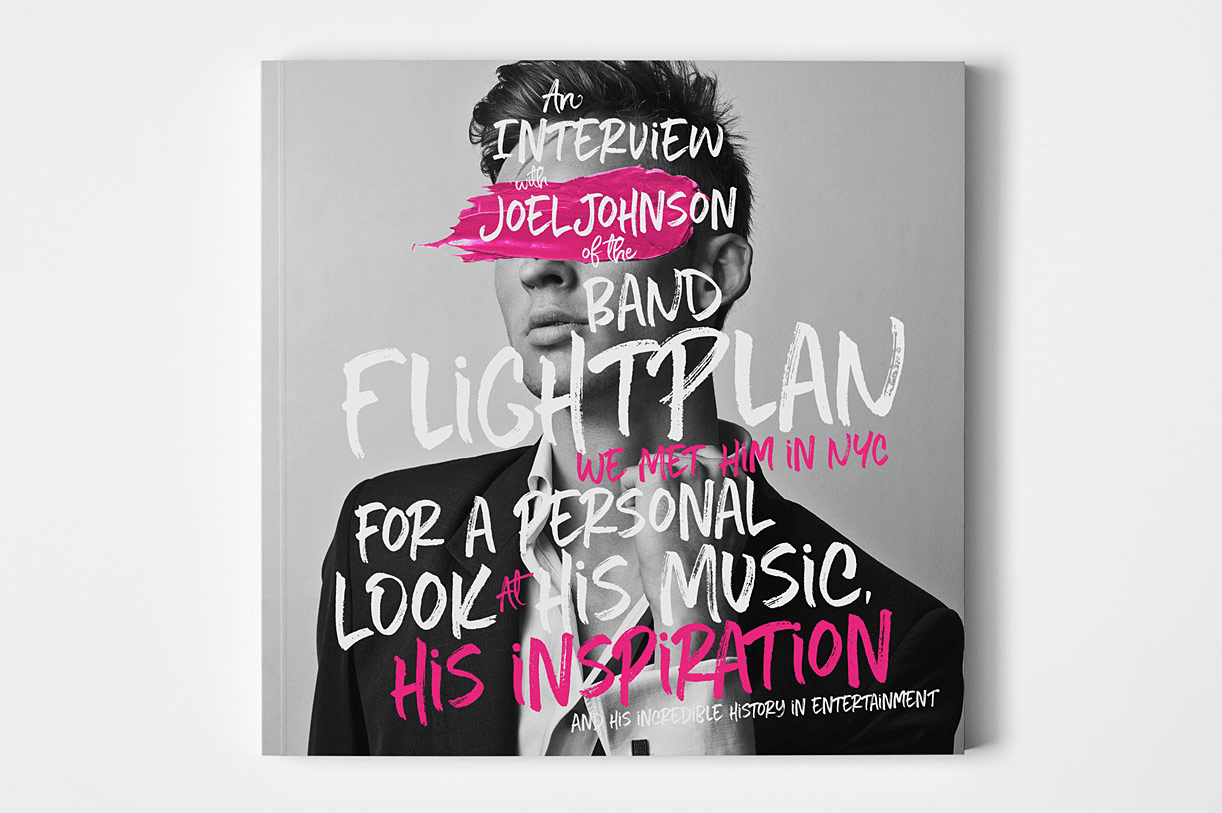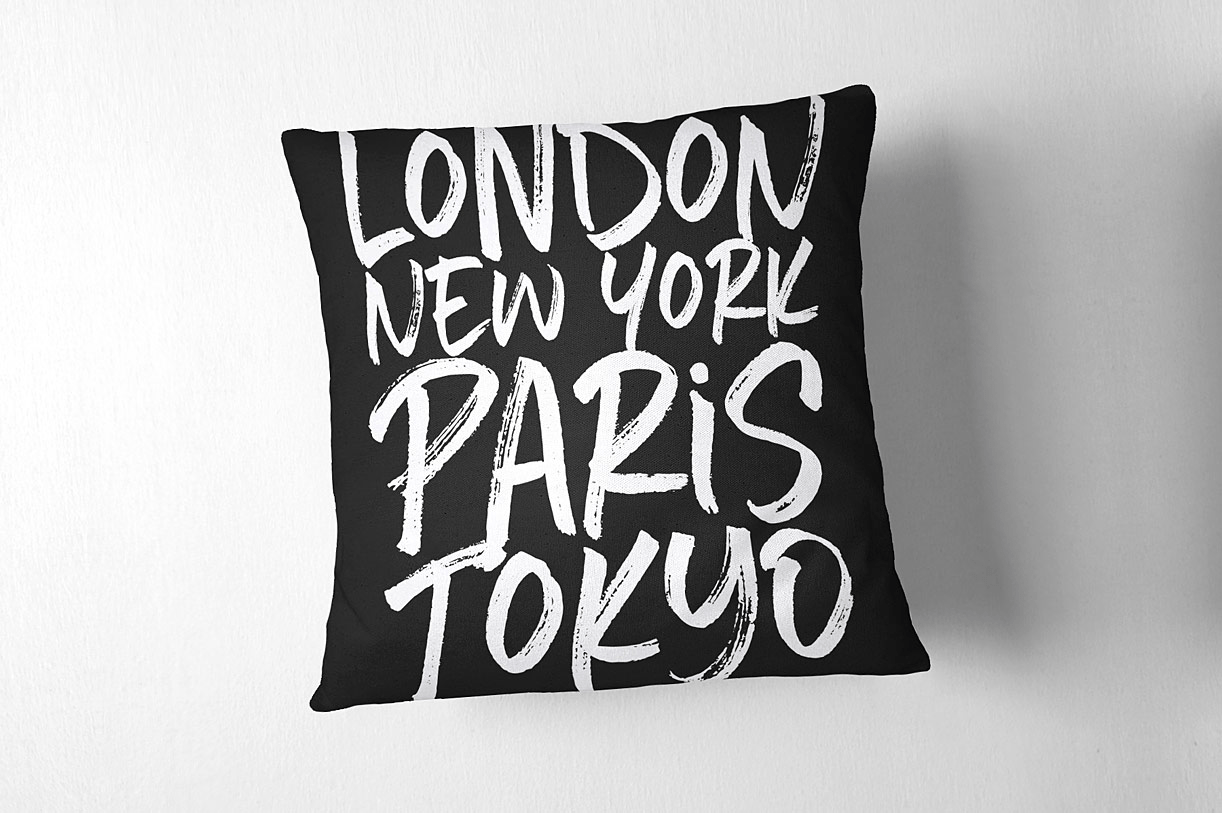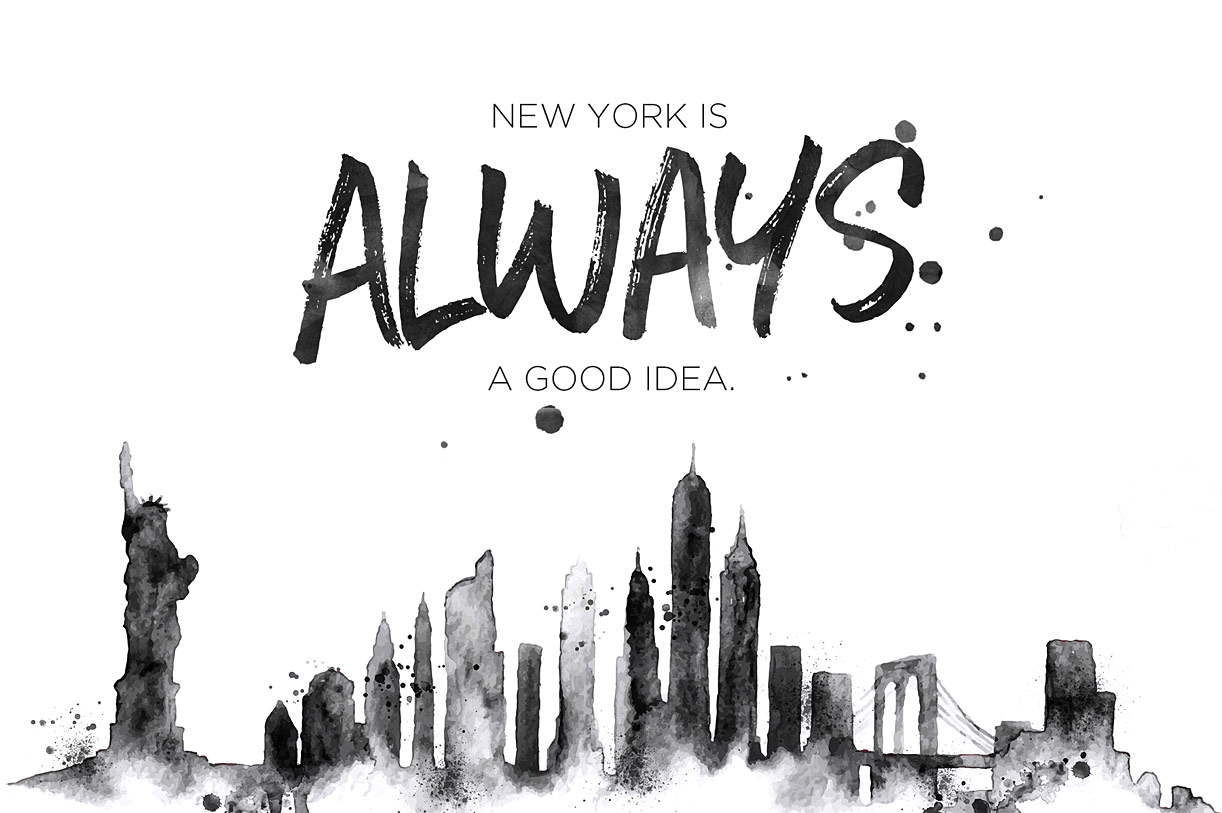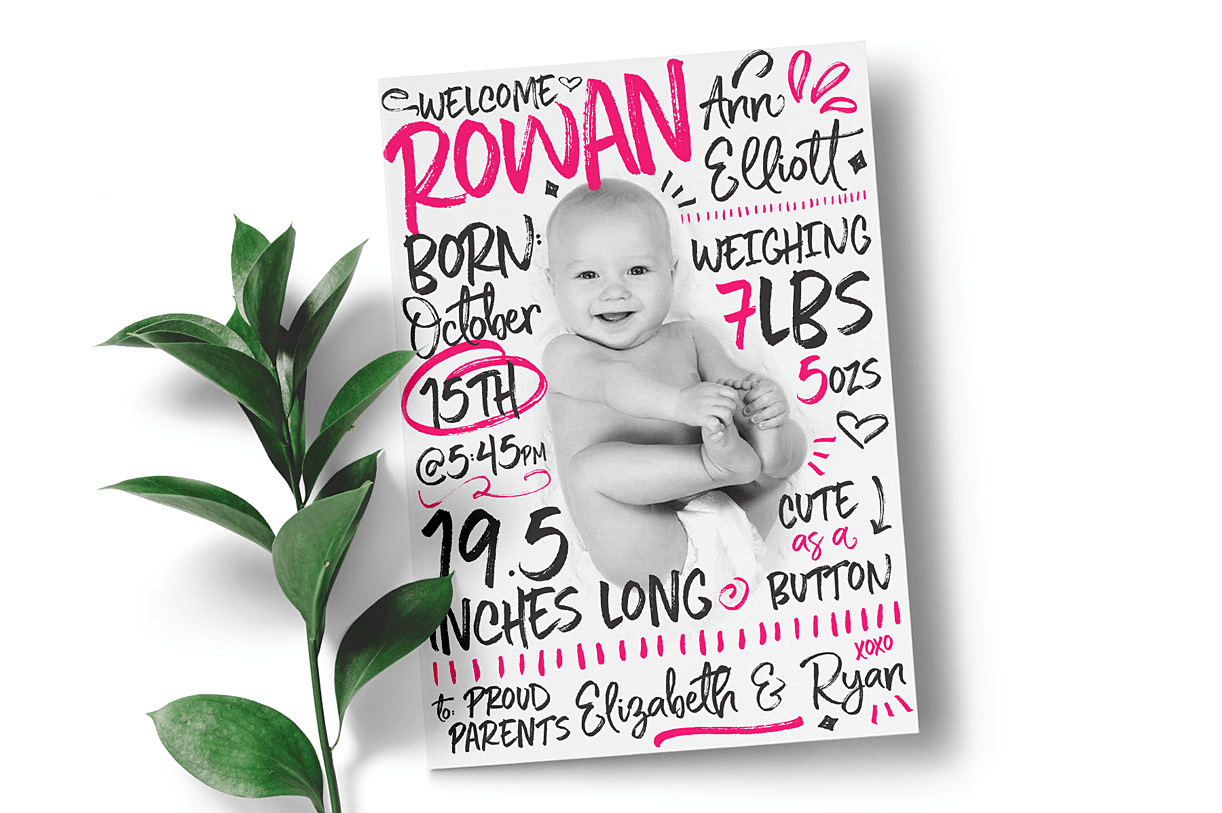
About Five Boroughs
Meet Five Boroughs! A delightfully playful follow up to the best-selling, Manhattan Darling! In honor of New York\’s Five Boroughs, this font set was designed to be reminiscent of the Big Apple: gritty and smooth; ragged yet soft; rough, beautiful and…